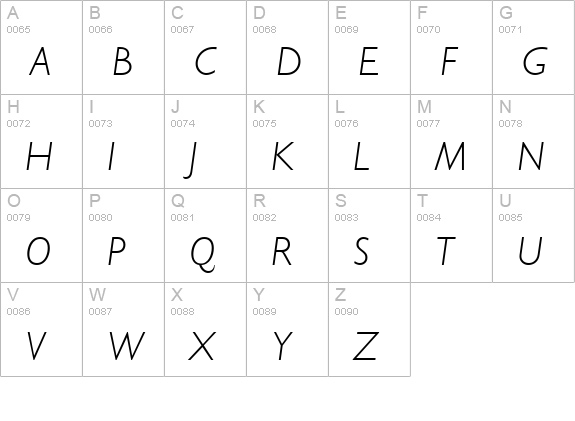
Gill Light SSi Light Italic Font Details
Gill Light SSi Light Italic is a refined, elegant, italic variant in the Gill typeface family \xE2\x80\x94 well suited to elegant body text, refined sub-headings, and luxury branding.
Gill Light SSi Light Italic font is a versatile and elegant typeface that exudes sophistication and modernity. Its delicate curves and slanted design create a sense of grace and fluidity, making it perfect for adding a touch of style to any project. Whether you're designing a logo, crafting a website, or creating printed materials, this font will surely elevate your work to the next level. Best of all, Gill Light SSi Light Italic font is available for free download at FontsMarket.com. You can easily access this high-quality font and incorporate it into your designs without any hassle. Don't miss out on the opportunity to enhance your projects with this beautiful typeface that is both timeless and contemporary. Download Gill Light SSi Light Italic font today and let your creativity shine!